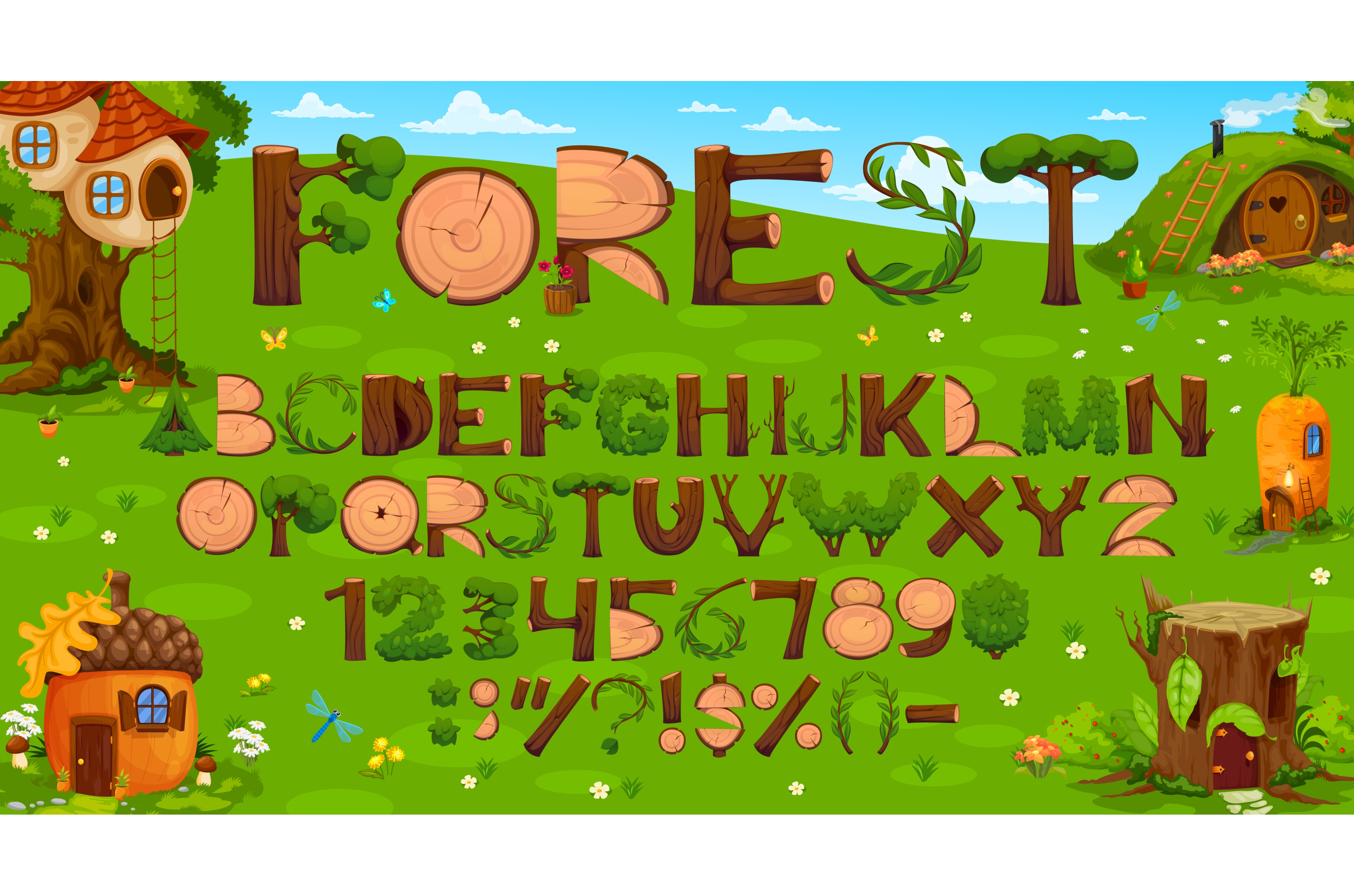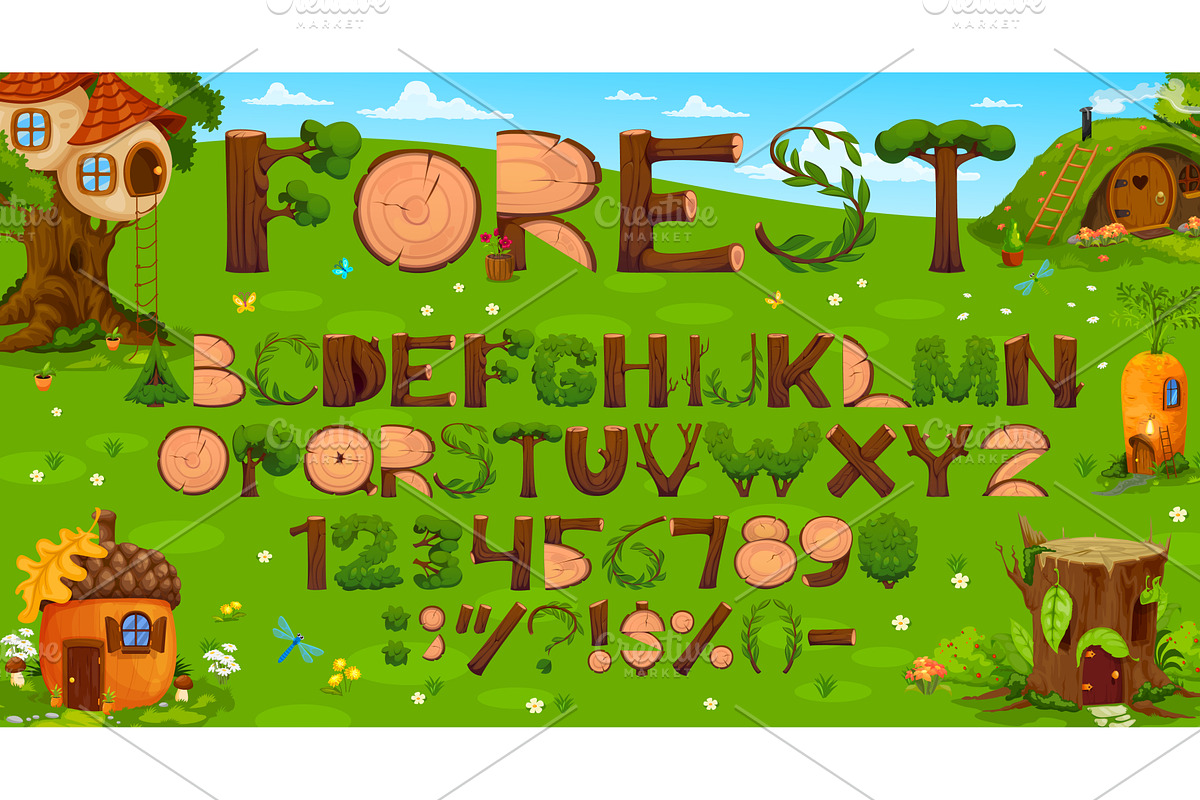
Wooden log font, stump bush typeface
Wooden log font, cartoon wood stump and bush typeface. Vector alphabet with forest themed letters, punctuation symbols and numbers. Funny typeset characters made of tree trunks, stumps and leaves